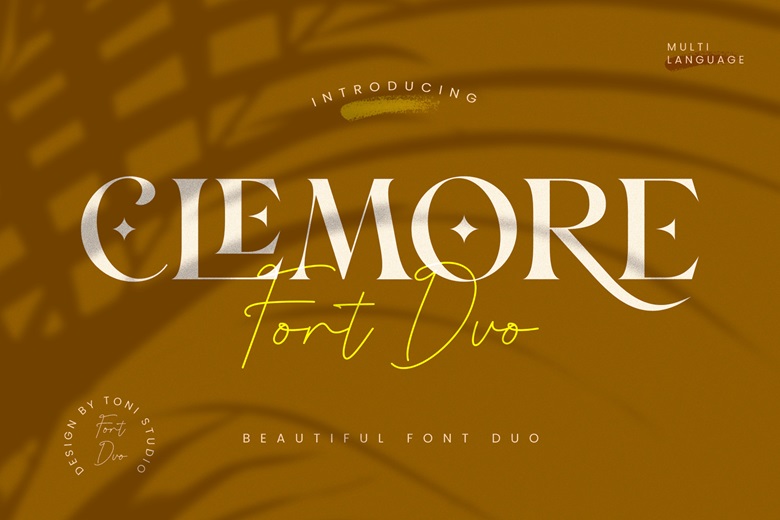
Clemore Font Duo
Clemore Duo is a modern and fancy duo font (serif and script). It is accompanied by clean lines and smooth curves, and it is ideal perfect with logos, wedding designs, quotes, display text and any other thing you desire to have. The font is PUA encoded and thus allows you to easily access all the glyphs and swashes.